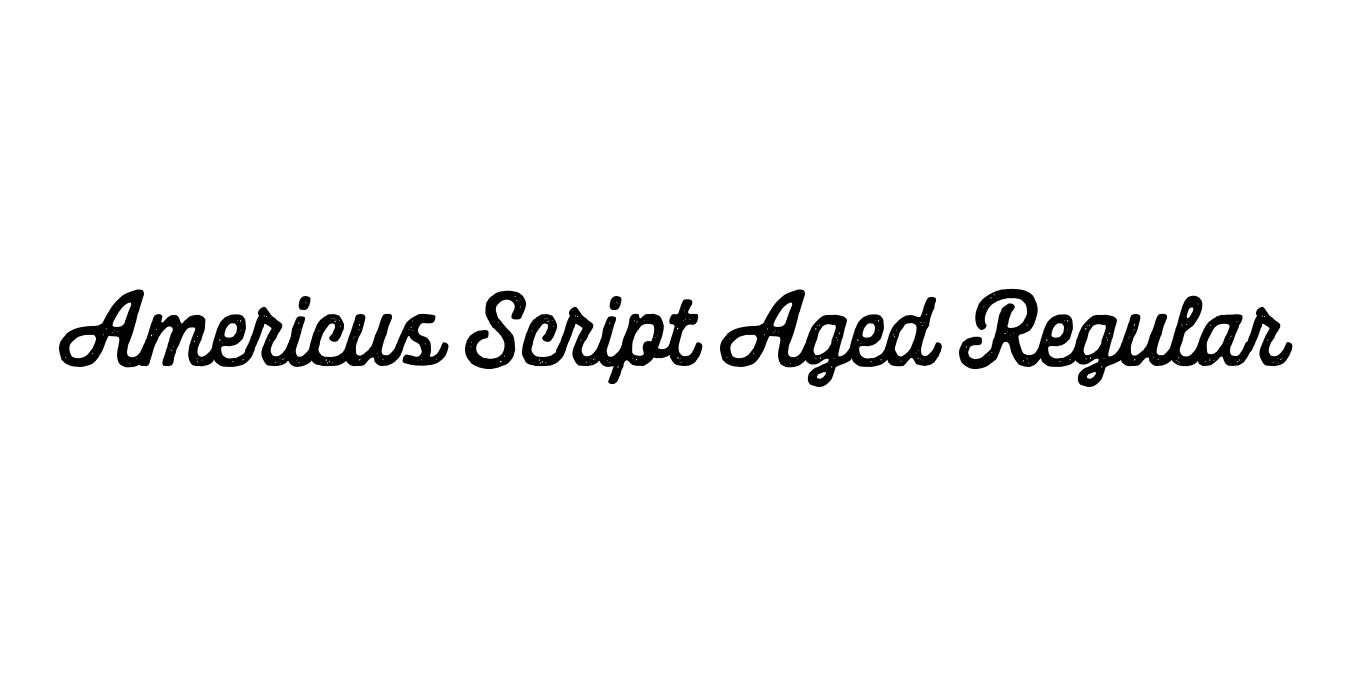
Americus Script Aged Regular
Designed by Jeremy Vessey (Hustle Supply Co.)
Americus Script Aged Regular is a key component of the Americus Typeface Collection, designed to capture the essence of vintage American lettering. Developed by Jeremy Vessey, this font features a distinct hand-drawn feel that is enhanced by an 'aged' or distressed texture, simulating the natural weathering of ink on paper. Its fluid strokes and rhythmic baseline make it an excellent choice for designers seeking an authentic, nostalgic aesthetic that feels both handcrafted and professional.
This typeface is highly versatile, often utilized for projects that require a touch of rugged elegance. The Americus Script Aged Regular comes equipped with OpenType features, including stylistic alternates and swashes, allowing for creative customization in various typographic layouts. It pairs exceptionally well with sans-serif and serif fonts, providing a textured contrast that works across both print and digital mediums, from artisanal branding to modern web headers.
Americus Script Aged Regular Best Uses
Perfect for creating authentic, hand-lettered vintage logos and brand identities.
Adds a rustic and organic feel to labels, craft beer bottles, and artisanal goods.
Excellent for t-shirt graphics and vintage-style merchandise branding.
Ideal for atmospheric quotes, stylish Instagram posts, and lifestyle photography overlays.